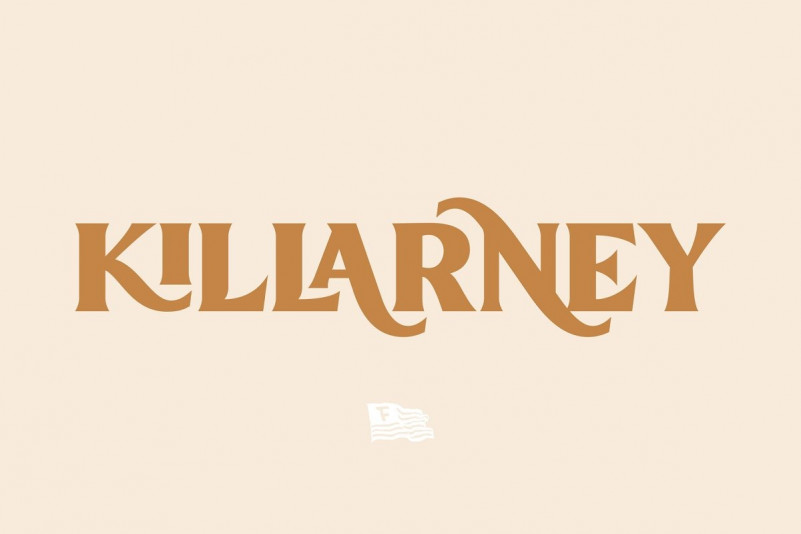
Killarney Display Font
Introducing our new font Killarney. A bold and heavy display font that inspired by the vintage/classic letterforms used in old-advertisements.. Mouse-crafted with high attention to details; clean lines, sharp edges and tempting curves. Its square and blocky letterforms make Killarney a great for headlines and space killer. Available in slanted version too, gives you more options too play with. Suits best for title/headline, logo/logotype, packaging/label designs, etc.